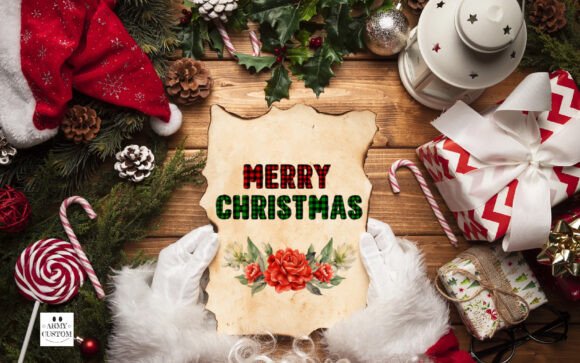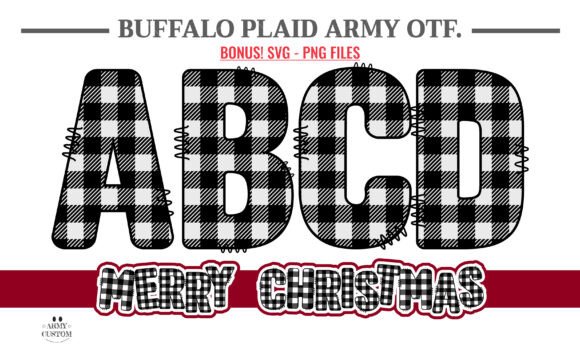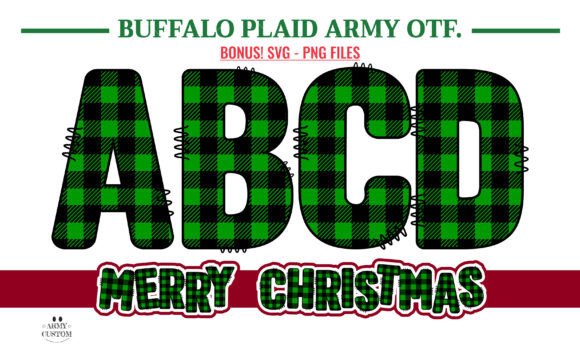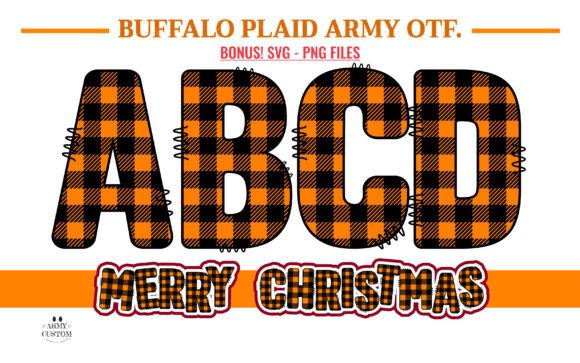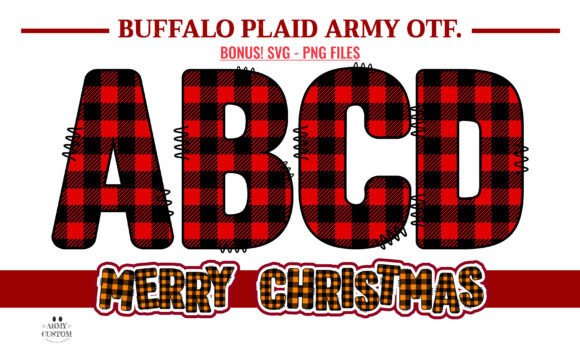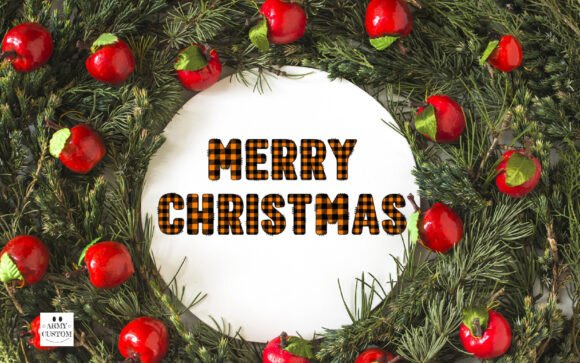
Deck the Halls with the Warmth of Buffalo Plaid Bundle Font
As the snowflakes start to fall and the fireplace crackles to life, there’s something special about the festive season that sparks our creativity. For many of us, the smell of pine and the sound of Bing Crosby’s voice transport us to a cozy winter wonderland, where the warmth of the season is palpable. It’s moments like these that make us crave the perfect font to capture the essence of the holiday spirit.
Enter the Buffalo Plaid Bundle Font, a typeface that embodies the very essence of a festive Christmas. With its rich red plaid pattern, this font seamlessly blends traditional charm with an engaging aesthetic, making it the perfect addition to any holiday design project. Whether you’re a seasoned designer or a DIY enthusiast, the Buffalo Plaid Bundle Font is a valuable asset that will add a touch of rustic warmth to your creations.
Buffalo Plaid Bundle Font Key Features
- Unique Plaid Patterns: The font includes 8 distinct plaid patterns, each with its own design and aesthetic.
- Font Size: The font is available in 4 different font sizes, ranging from 12pt to 24pt, allowing for versatility in design applications.
- Resolution: Designed for high-resolution displays, ensuring crisp and clear text rendering on modern devices.
- Color Options: The font includes a range of color options, including classic red and black, as well as more muted and pastel shades, to suit various design preferences.
- Comprehensive Character Set: The font includes a comprehensive character set, including uppercase and lowercase letters, numerals, punctuation, and special characters.
Buffalo Plaid Bundle Font Review
I recently had the chance to work with the Buffalo Plaid Bundle Font, and here’s my honest take on it.
- Unique and quirky design: The Buffalo Plaid Bundle Font brings a fun and playful vibe to any project. Its bold, plaid pattern is sure to grab attention and add a touch of whimsy to your designs.
- High-quality raster images: The font’s raster images are crisp and clear, making them perfect for use in logos, posters, and other high-resolution applications.
- Easy to use: The font is relatively easy to use, even for designers who are new to working with unique fonts.
- Limited flexibility: The Buffalo Plaid Bundle Font is a bold, plaid design that may not be suitable for all projects. Its bold lines and patterns may not be the best choice for designs that require a more subtle or sophisticated look.
- Distortion in smaller sizes: The font’s raster images can become distorted when used in smaller sizes, which may affect its overall appearance.
- Limited language support: The font may not support all languages or character sets, which could be a limitation for designers who need to work with multiple languages.
The Buffalo Plaid Bundle Font is a fun and unique design that’s perfect for projects that require a playful, attention-grabbing look. While it has some limitations, it’s still a great choice for designers who want to add some personality to their work.
Getting the Most Out of the Buffalo Plaid Bundle Font
To get the most out of the Buffalo Plaid Bundle Font, use it to create unique and eye-catching designs. Combine it with bold graphics and contrasting colors to make your designs stand out.
The Buffalo Plaid Bundle Font is commonly used in outdoor and country-themed designs, such as:
– Plaid patterns and graphics
– Rustic and country-themed logos
– Outdoor and nature-inspired designs